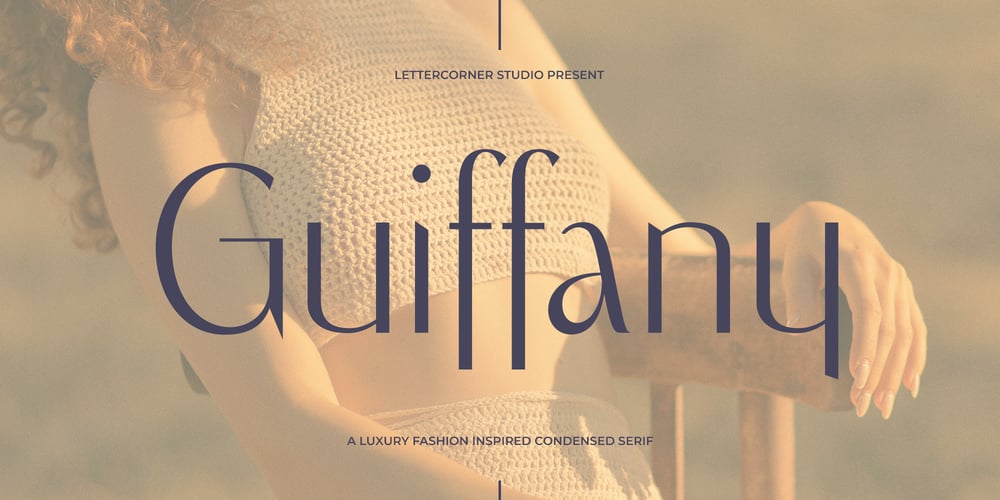
Guiffany Font Family was designed by Muhammad Afif Ersya and published by Mevstory Studio. Guiffany contains 2 styles and family package options. Introducing our new typeface, Guiffany – A contemporary, luxury, fashion-inspired condensed serif, that comes with uppercase & lowercase alternates and full of ligatures perfect for creating variety in your designs.This is a display serif font that we recommend using in the following types of work; magazines (titles and layouts), logos and branding, invitations, quotes, blog headers, posters, advertising and body copy.